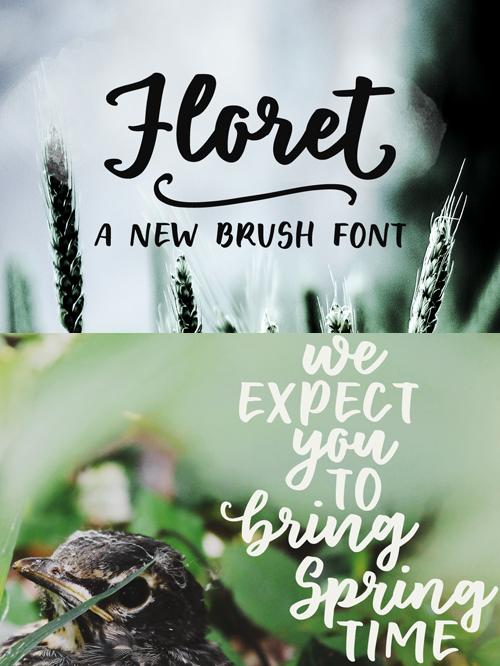
Floret is a smooth brush font with tons of extras! It�s perfect to make a statement and will look great in social media quotes, branding and logotypes, editorial design, postcards, notes and tags. Floret includes: - A-Z, a-z, 0-9, accents, punctuation and symbols - A set of alternate caps (that will look great in all caps text) and lower cases (for a more authentic handlettered look) - Two swashes for each lower case letter and 10 matching ornaments perfect to decorate your texts - Ligatures for the double letters - BONUS: a more slanted version of the font, for a more dramatic look Try it out for free (for private use) with this sample version! For the full public/commercial version, please visit one of these links: https://www.anasfonts.com/ https://creativemarket.com/justlikethistrain?u=justlikethistrain https://thehungryjpeg.com/anas-fonts/ https://www.fontspring.com/foundry/anas-fonts |